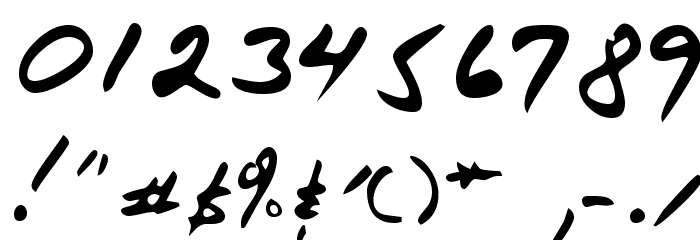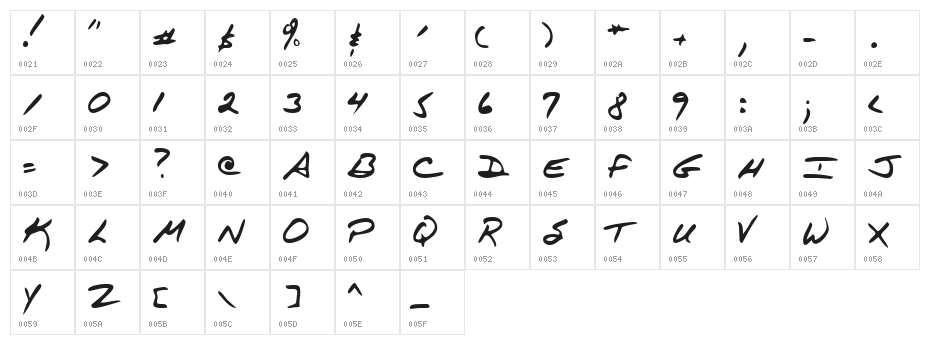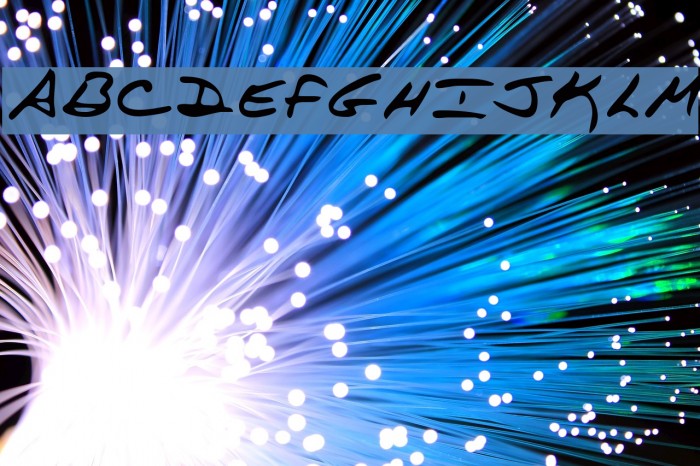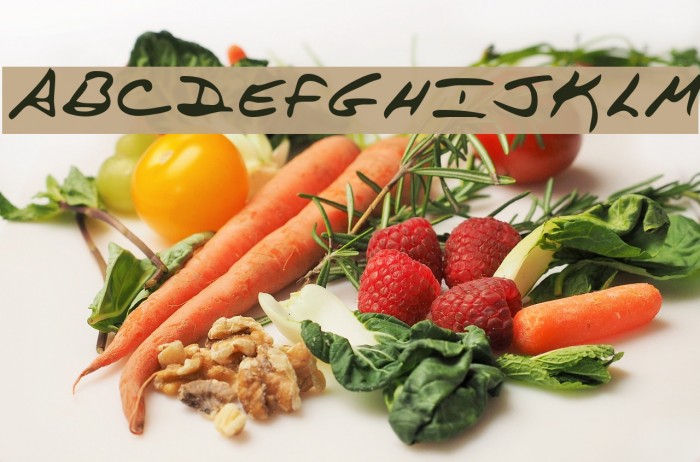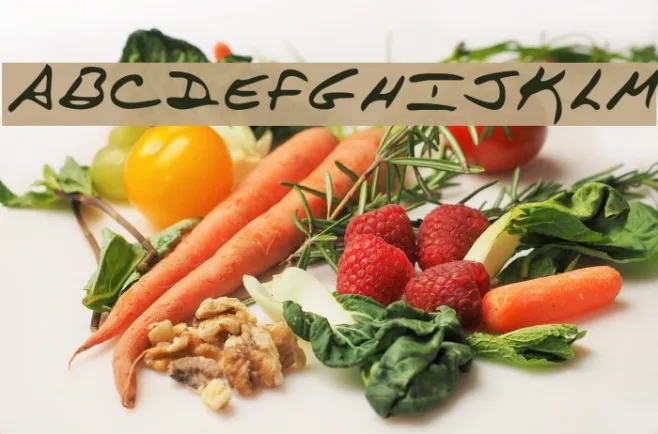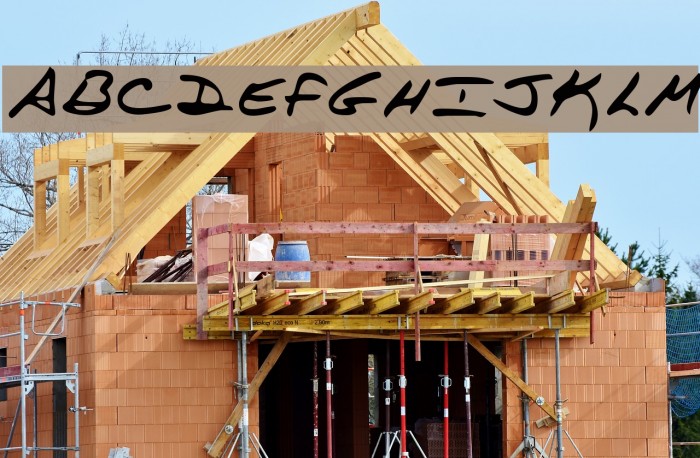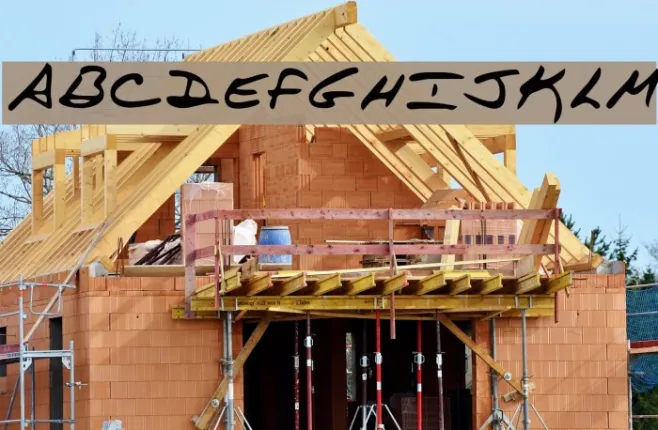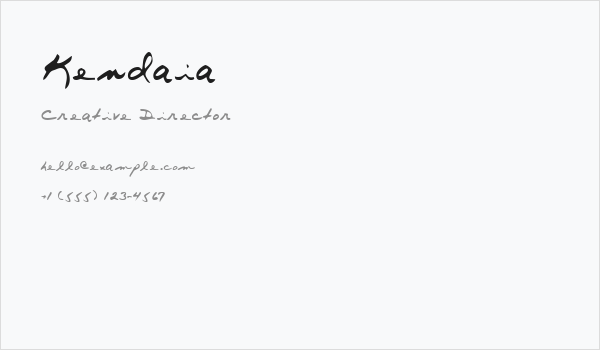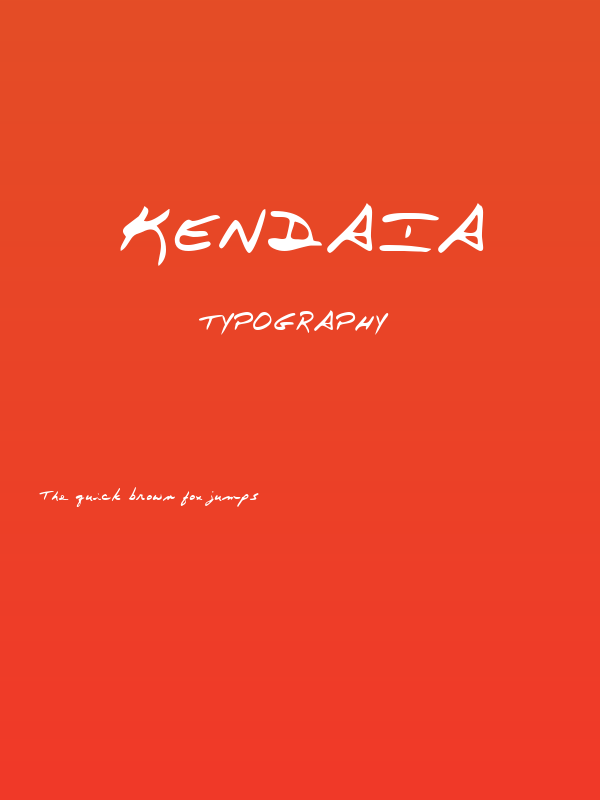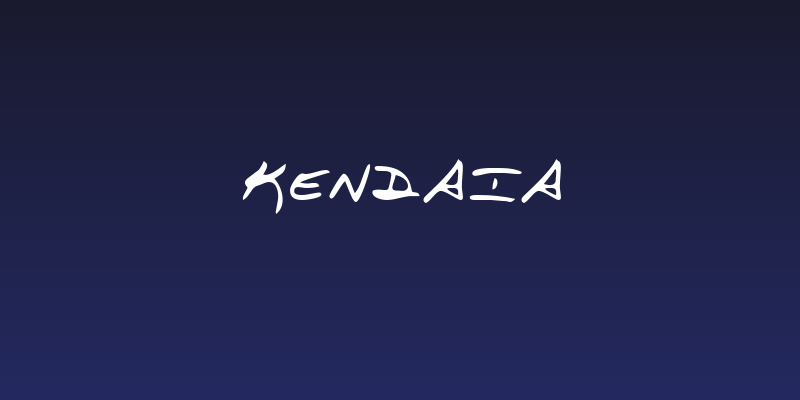
Kendaia Font
Kendaia Description
This font features a dynamic and fluid handwritten style, characterized by its bold and expressive strokes. The uppercase letters are slightly slanted, giving a sense of movement and energy, while the lowercase letters maintain a consistent flow, enhancing readability. The numbers are bold and clear, with a playful touch that complements the overall style. Special characters are creatively designed, adding a unique flair to the font. The overall appearance is both artistic and modern, making it suitable for a variety of creative projects.